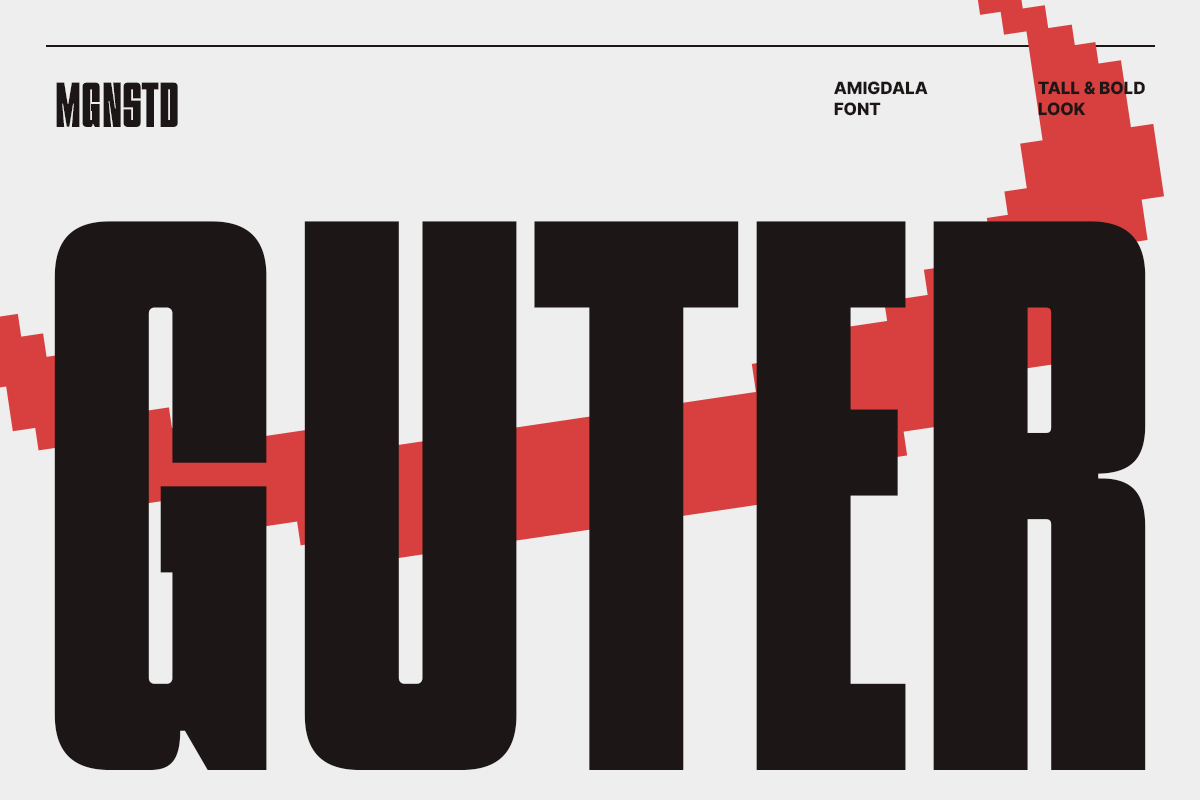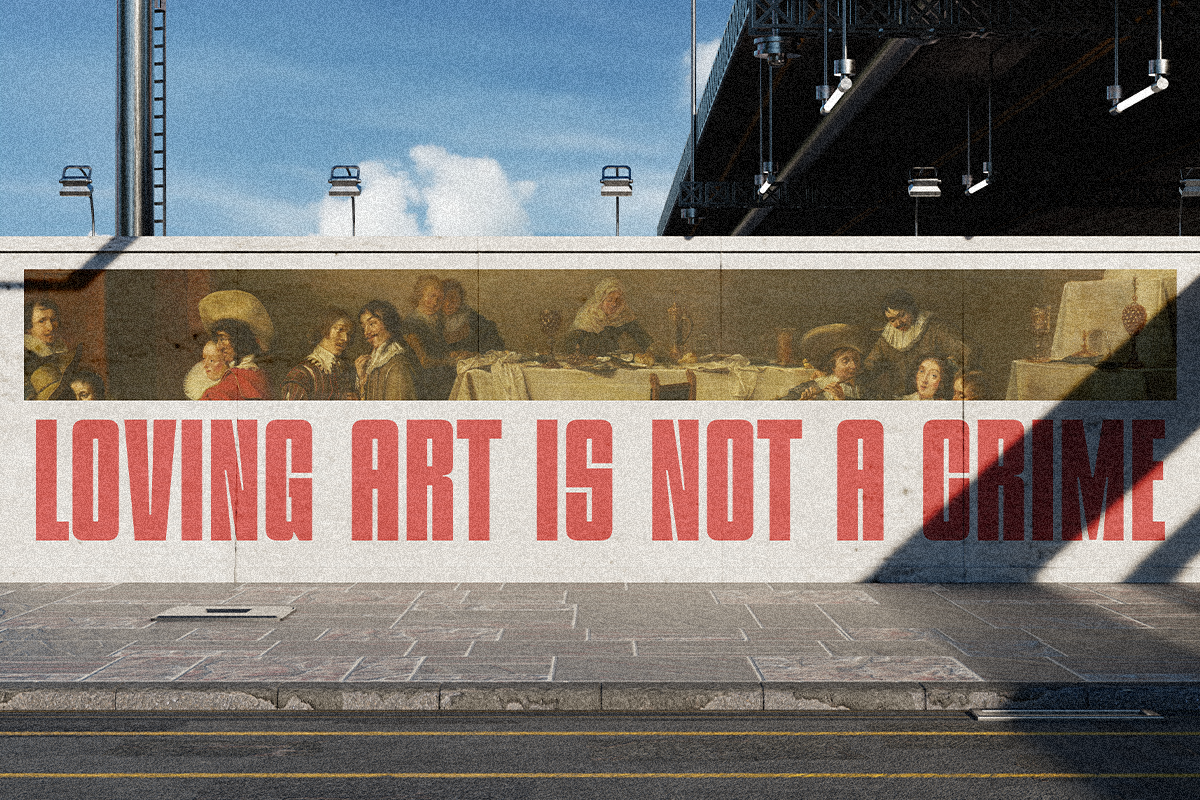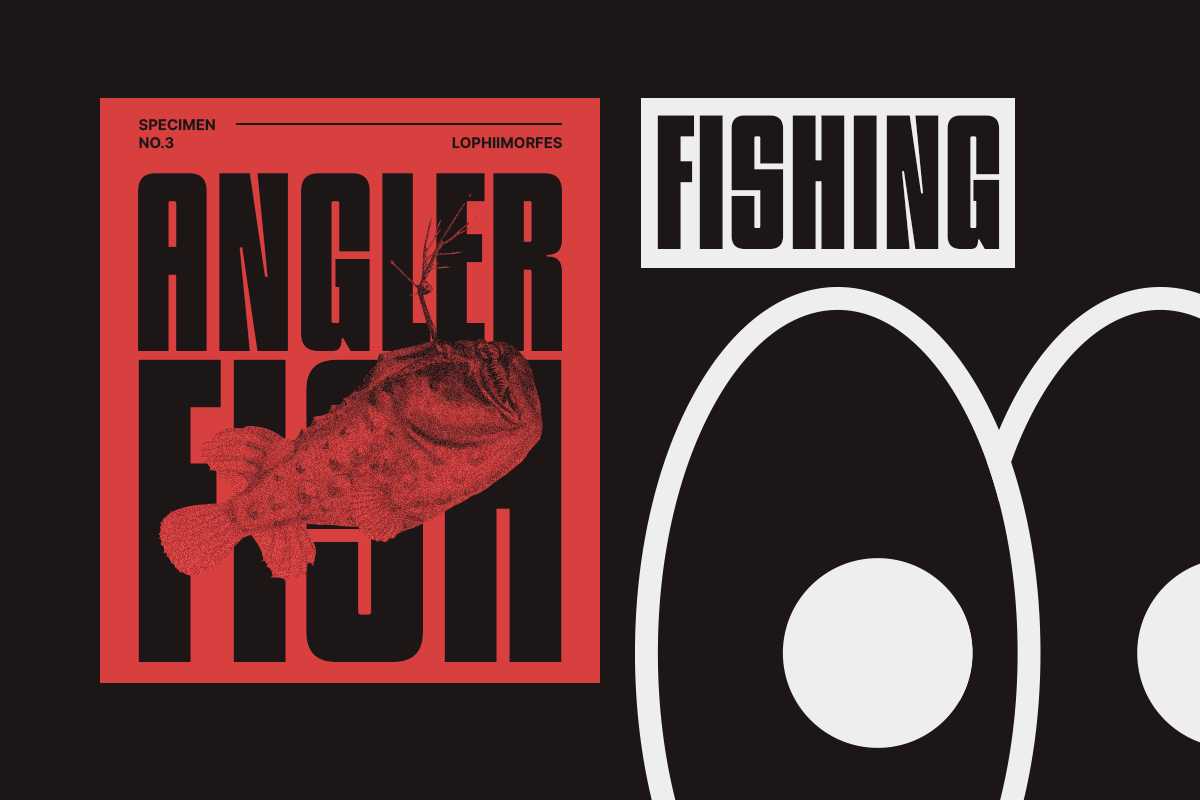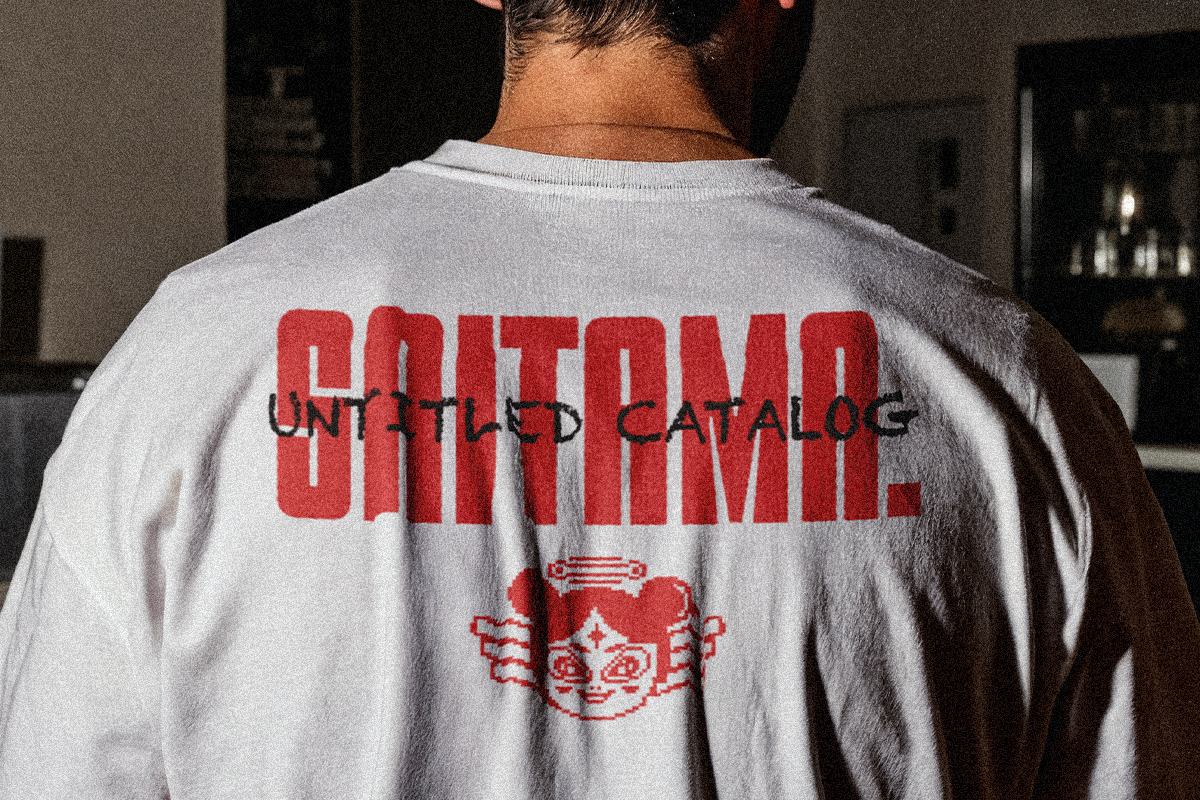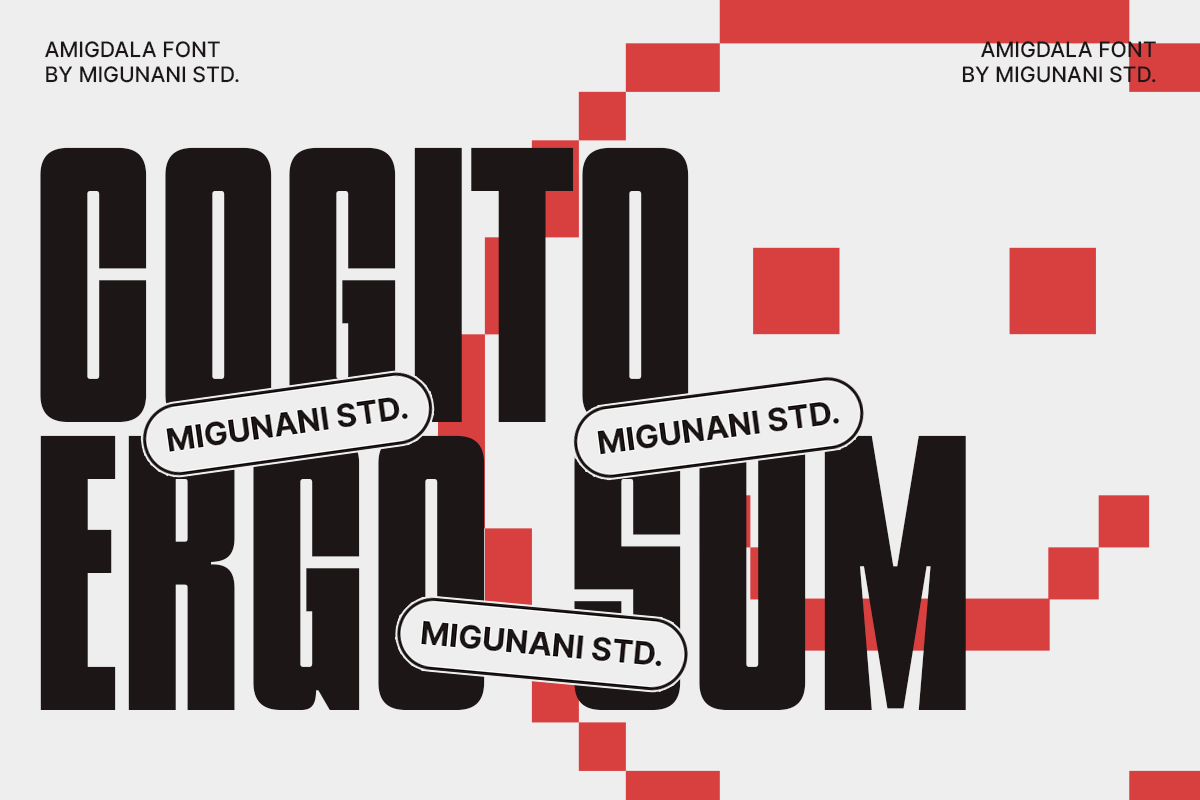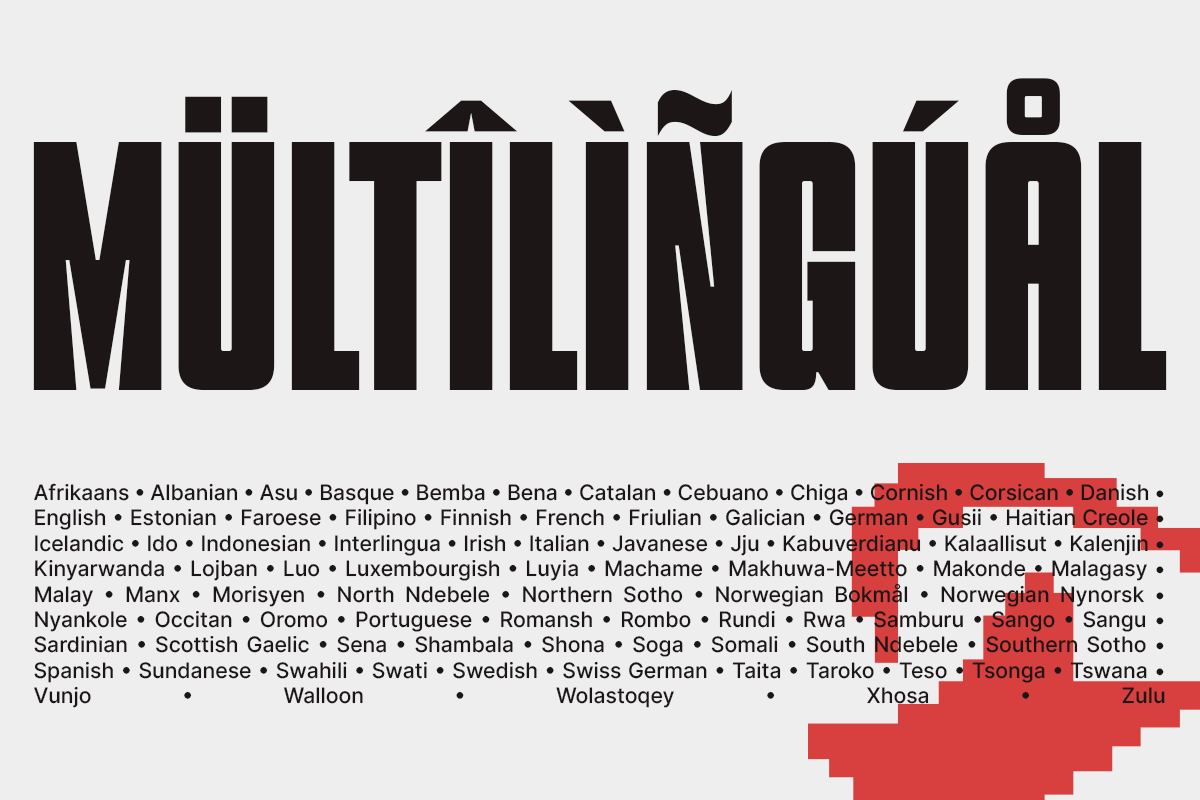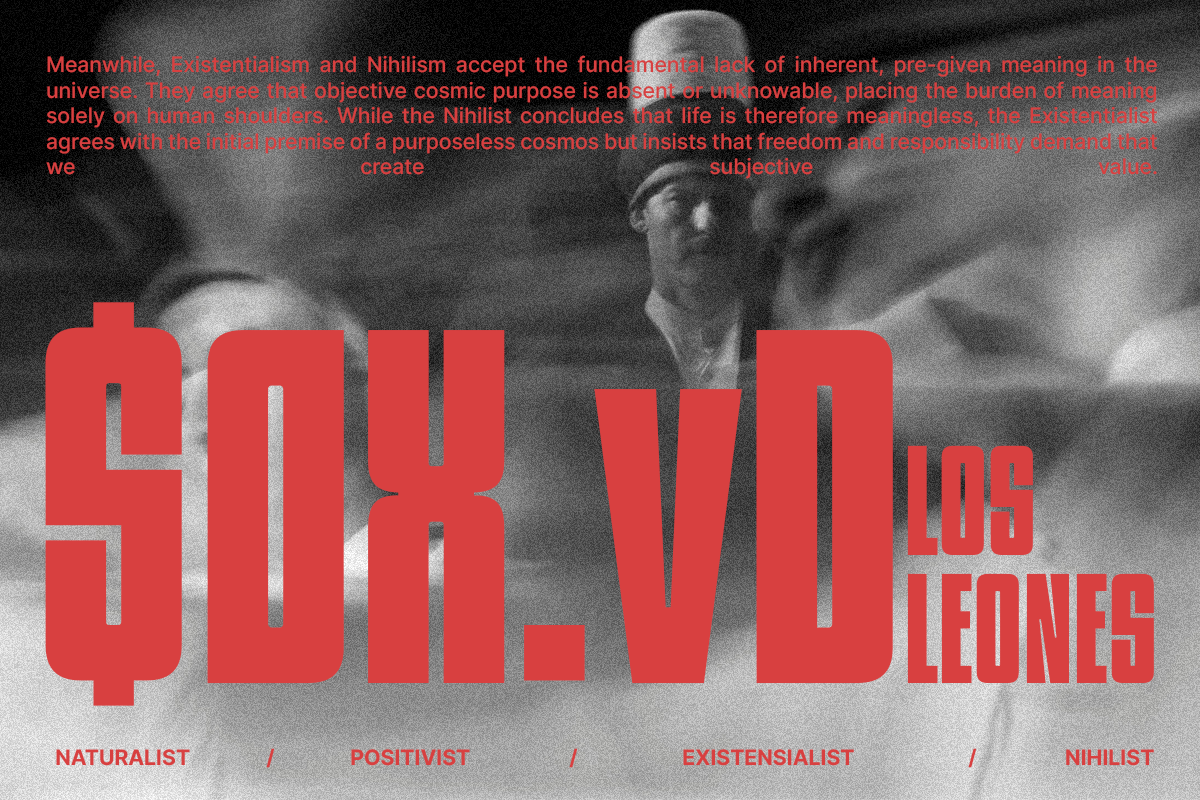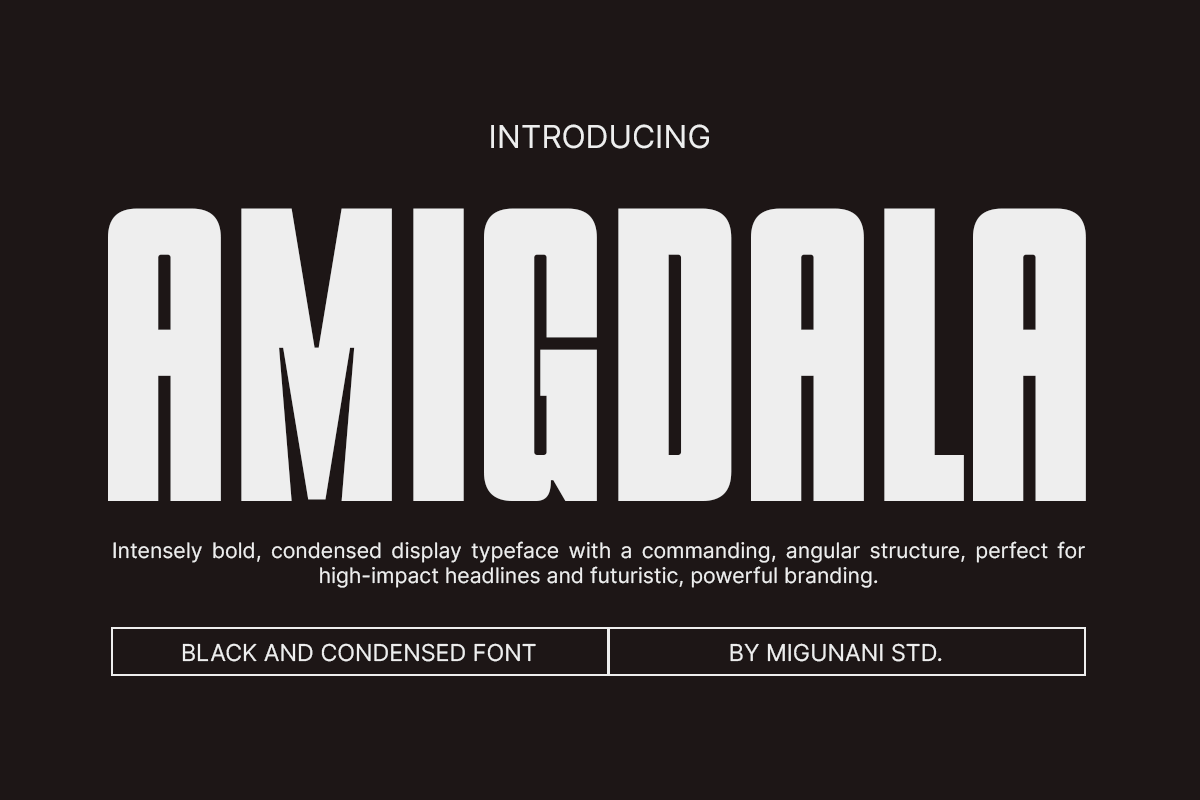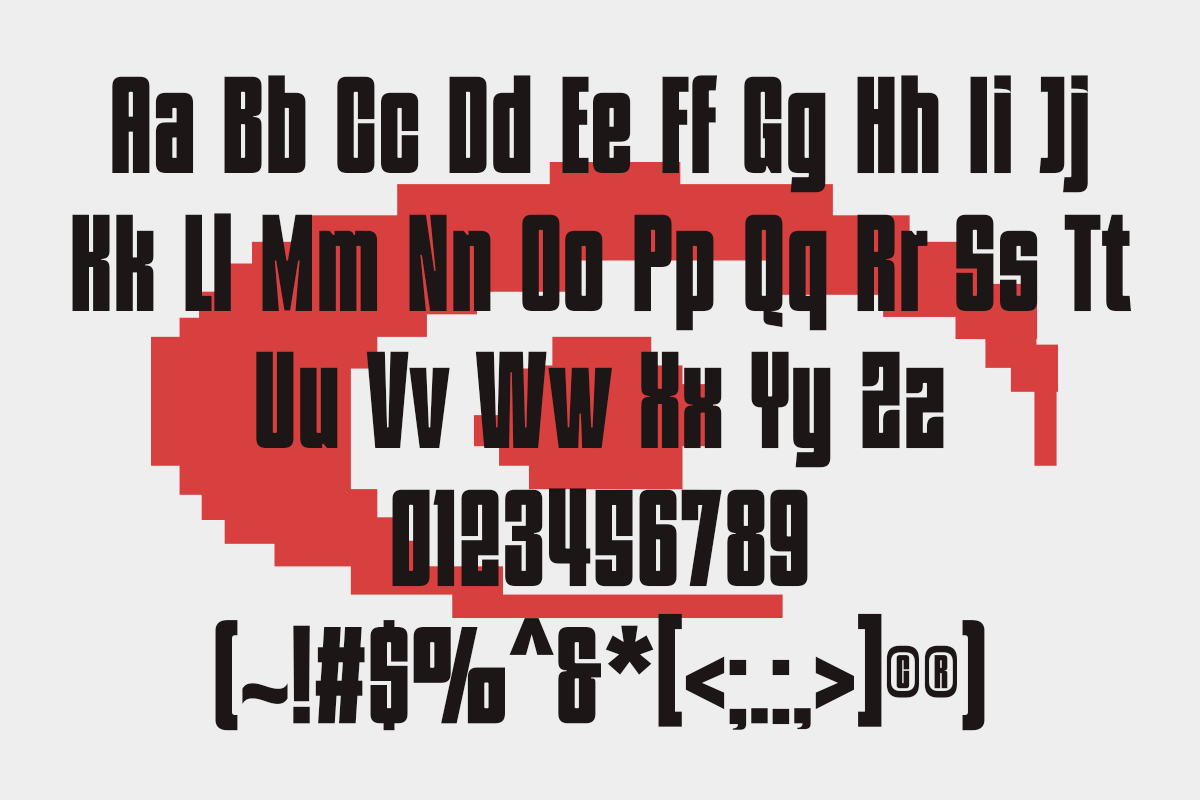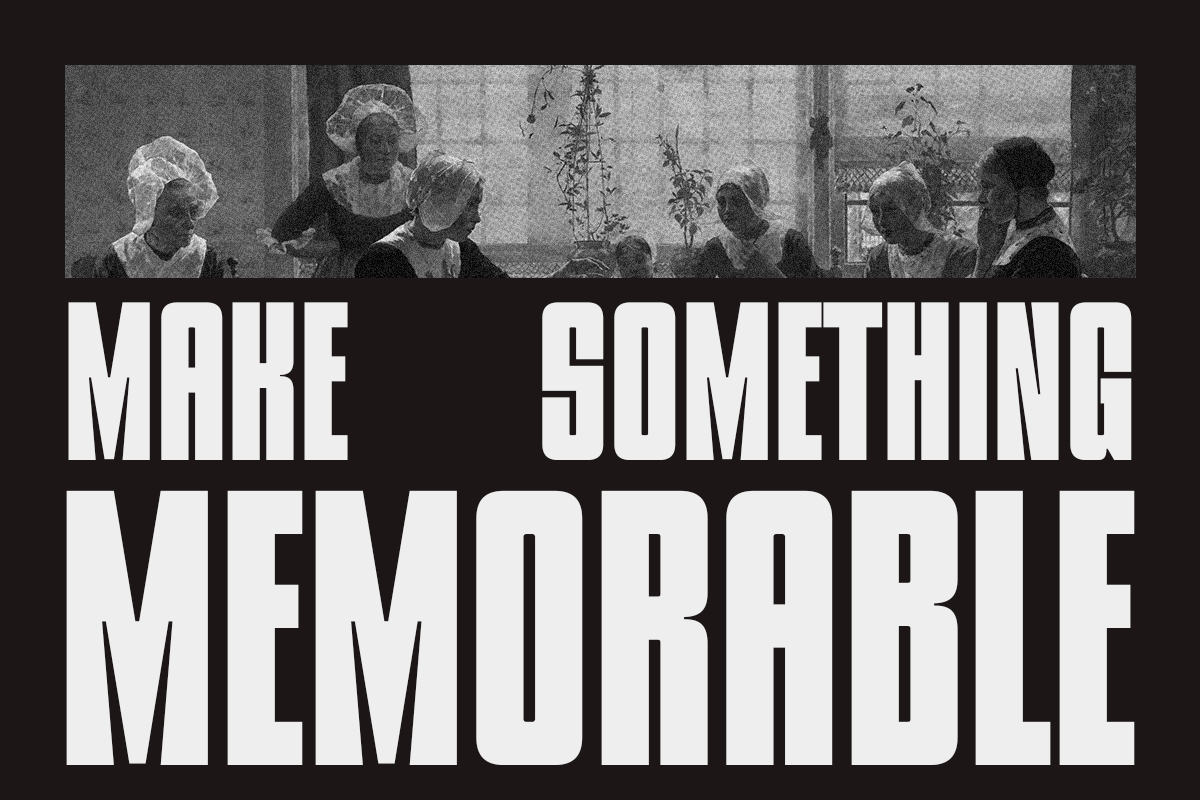
Amigdala Tall Display Font
This intensely bold and ultra-condensed display typeface commands attention, delivering a strong sense of raw power, urgency, and futuristic edge. Defined by its robust, monolithic forms and sharp, angular negative spaces, AMIGDALA is engineered to convey confidence and drama in any setting.
Key Features & Style
- Aesthetic: Aggressive, Futuristic, Industrial, Monolithic.
- Structure: High x-height, tightly condensed letterforms, minimal counter space.
- Impact: Ensures maximum word density and visibility in restricted spaces.
Use Cases (Where it Shines)
- Headlines: Movie posters, album art, event flyers, and high-energy advertising campaigns.
- Branding: Gyms, eSports teams, extreme sports apparel, and technology firms.
- Packaging: High-impact product labeling and beverage cans.
- Digital: Powerful website hero banners and social media graphics.
Product Pairing (What it works well with) AMIGDALA's aggressive display style pairs harmoniously with subtle, legible sans-serifs (like Montserrat or Open Sans) for body text, or with simple, clean monospace fonts to complete a high-tech, industrial aesthetic.